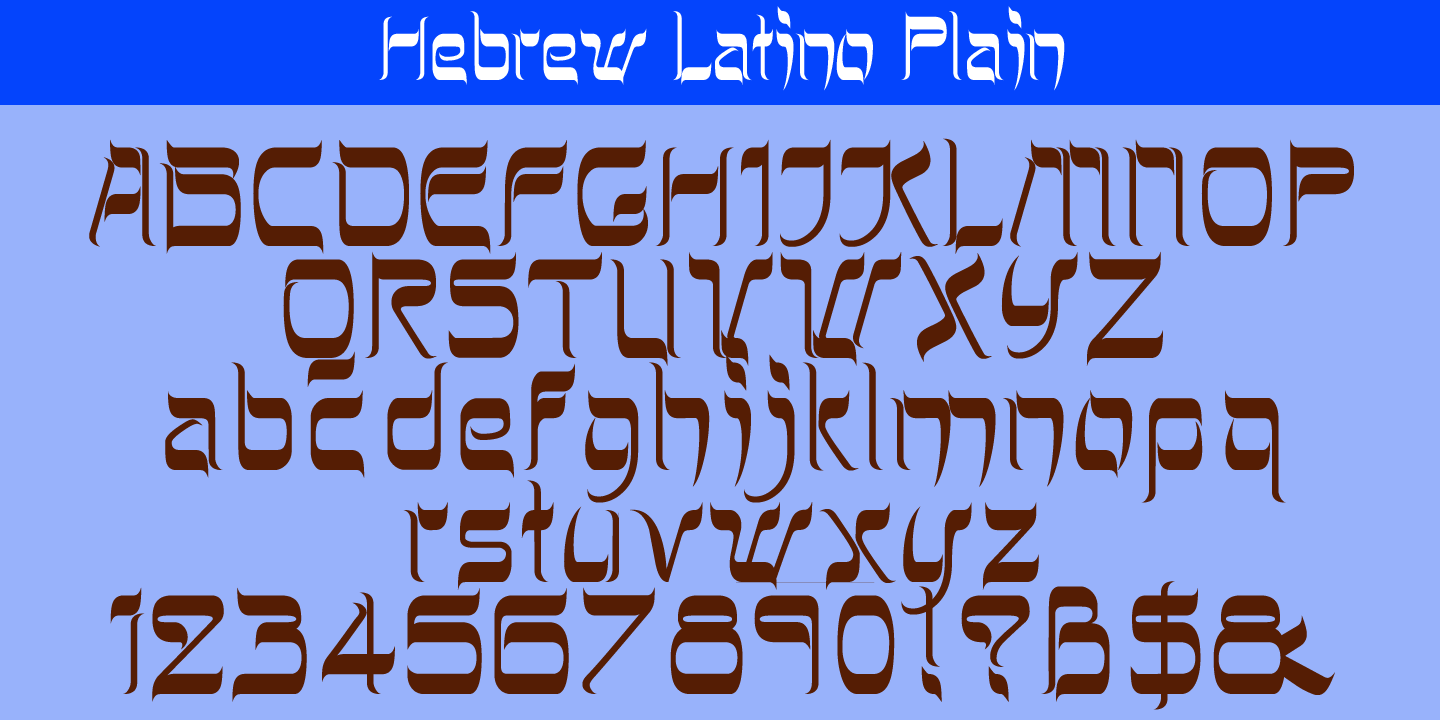
The Hebrew Latino Font is an excellent choice for designs that aim for a unique cultural blend, offering a distinctive aesthetic that bridges traditional and contemporary influences. Imagine it gracing the signage of a fusion restaurant, adding a touch of exotic flair to travel brochures, or bringing a vibrant, multicultural feel to event promotions. It's also perfectly suited for cultural festival branding, personalized artwork, unique greeting cards, and any project where you want to convey a sense of heritage, diversity, and artistic expression. Its often stylized forms, incorporating elements inspired by both Hebrew and Latin scripts, make it ideal for conveying a rich narrative and a memorable statement.
What makes the Hebrew Latino Font so exciting is its ability to instantly capture attention through its innovative cross-cultural design. It frequently features letterforms that subtly weave together characteristics from both script traditions, creating a harmonious and intriguing visual language. This font has a powerful and artistic presence that can instantly elevate your design, making it feel both sophisticated and uniquely expressive. It’s designed to be a focal point, ensuring your message is not just seen, but appreciated for its distinctive and culturally rich flair.
The Hebrew Latino Font family typically might focus on a few impactful weights to best convey its distinctive character, possibly including stylistic alternates or unique ligatures that enhance its cultural fusion appeal. While it might not always have an extensive range of weights, its strength lies in its unique visual style and inherent expressiveness. These variations empower designers to create a truly captivating and memorable display, ensuring the Hebrew Latino Font Free Download can adapt to a wide array of projects while maintaining its signature, blended charm.